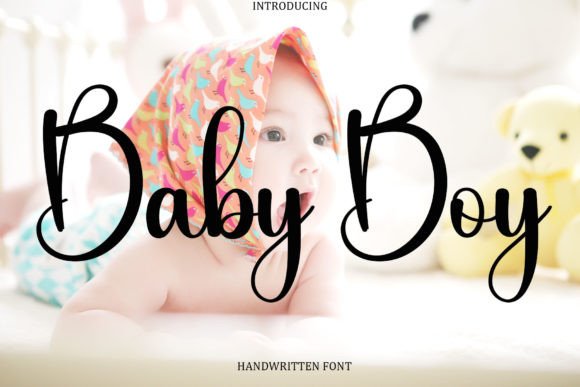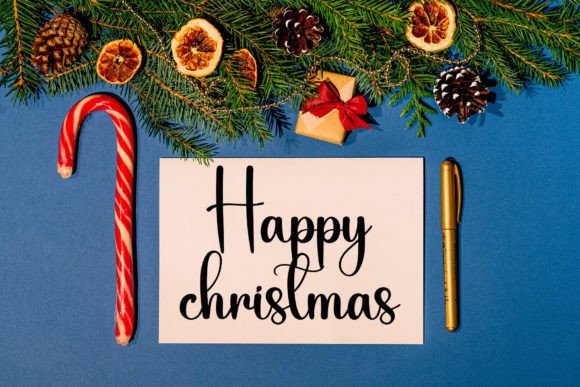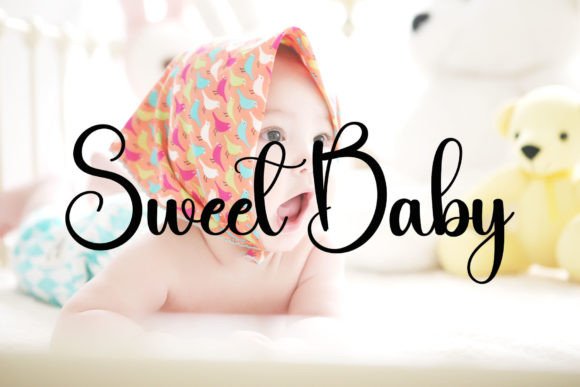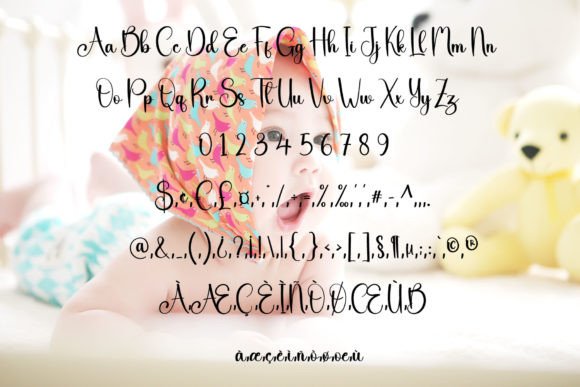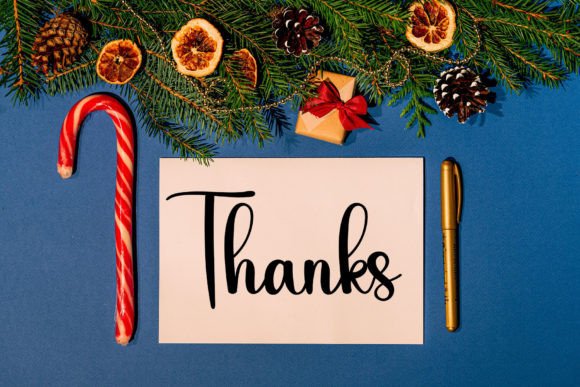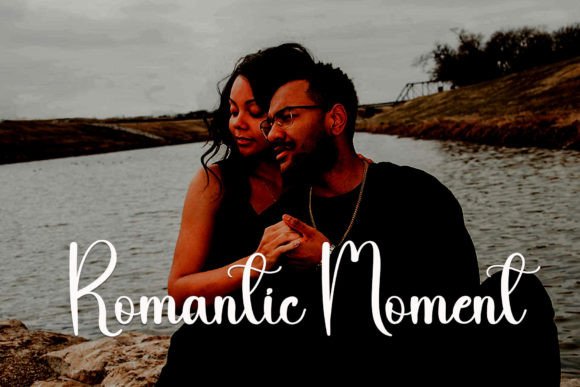
Baby Boy Font
About Baby Boy Font
Baby Boy is a delightful and charming handwritten font that exudes sweetness and beauty. With characters that dance along the baseline, this font brings a playful and whimsical touch to your designs. Its handwritten aesthetic adds a personal and authentic feel, making it a perfect choice for a variety of creative projects.
The charm of Baby Boy is evident in its carefully crafted letterforms, creating a visual language that is both sweet and beautiful. The dancing characters along the baseline contribute to a lively and dynamic appearance, adding a touch of playfulness to your designs.
In terms of luxury, Baby Boy brings a unique and sophisticated spark to any design project. The handwritten style, combined with the dancing baseline, adds an element of exclusivity and personalization, making it suitable for a range of high-end and luxury applications.
Whether you’re working on invitations, branding, social media graphics, or other design projects, Baby Boy has the versatility to enhance the overall aesthetic. It is particularly well-suited for projects where a sweet and luxurious vibe is desired.
Adding Baby Boy to your design toolkit allows you to infuse a sense of joy and elegance into your creative projects. Its unique features and handwritten charm make it a font that stands out, capturing attention and adding a touch of luxury to any design project.
In summary, Baby Boy is more than just a font; it’s a design asset that brings sweetness, beauty, and a touch of luxury to your creative endeavors. Whether you’re creating invitations or luxury branding, Baby Boy is ready to add a spark of charm and exclusivity to your designs.